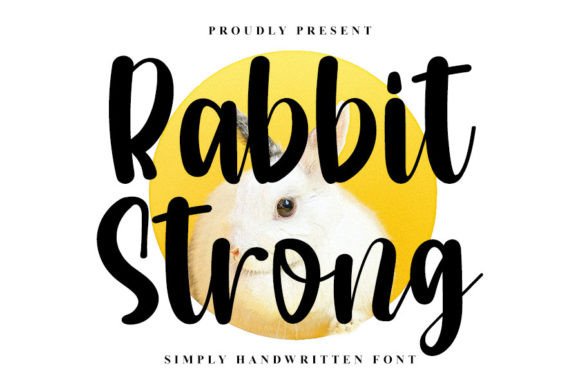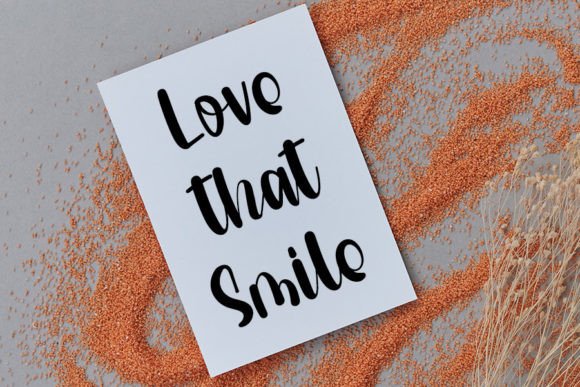
About Rabbit Strong Font
Rabbit Strong font is a beautifully crafted handwritten typeface designed to bring an elegant touch to your creative projects. With its neat strokes and timeless style, this font makes any design look sophisticated and charming. Whether you’re working on logos, invitations, or social media content, Rabbit Strong font offers the perfect balance of style and readability.
Elegant and Distinctive Style
Rabbit Strongfont features carefully designed handwritten characters that flow naturally. Its elegant curves and clean lines create a unique personality, helping your designs stand out with a personal and graceful touch.
Ideal for Invitations and Greeting Cards
If you want to add warmth and style to your invitations or greeting cards, Rabbit Strong is a perfect choice. It gives a delicate yet confident look that enhances the emotional appeal of your special occasions.
Perfect for Branding and Social Media
This font works wonderfully for branding projects, including logos, packaging, and promotional materials. It also shines on social media posts, making your content eye-catching and memorable with its stylish handwritten appearance.
Versatile Use in Creative Projects
Rabbit Strongfont adapts well to a variety of design needs. From posters and photography watermarks to merchandise and quotes, it adds a classy handwritten feel that elevates any project.
Why Choose Rabbit Strong Font?
Combining elegance with a neat and readable design, Rabbit Strongfont is a versatile tool for designers. Its timeless charm makes it suitable for all kinds of creative work where a beautiful handwritten style is desired.